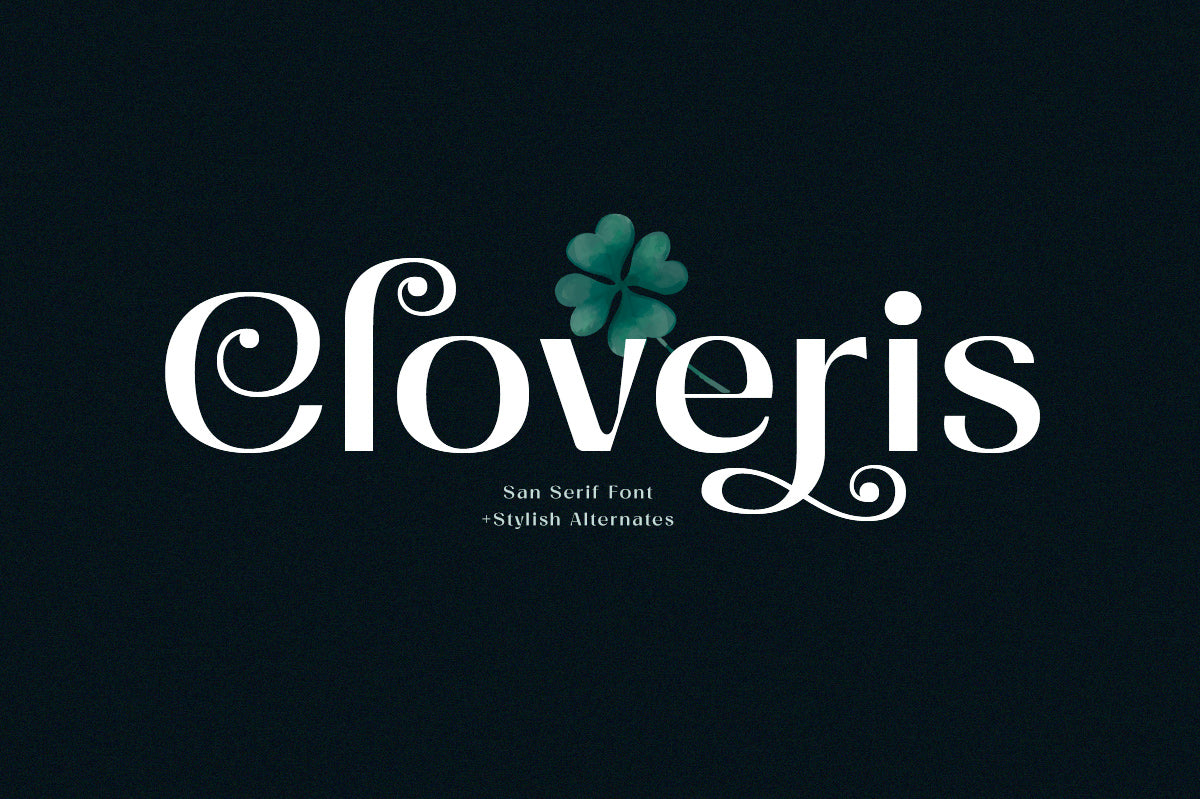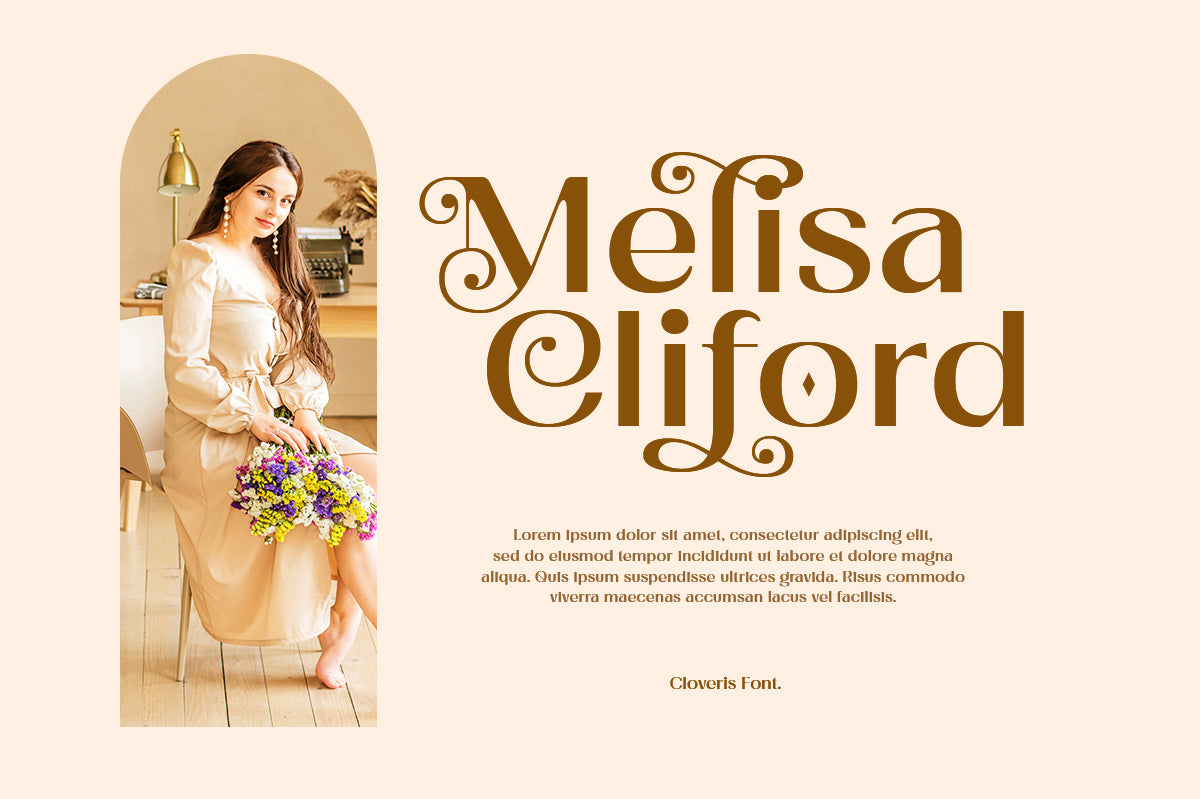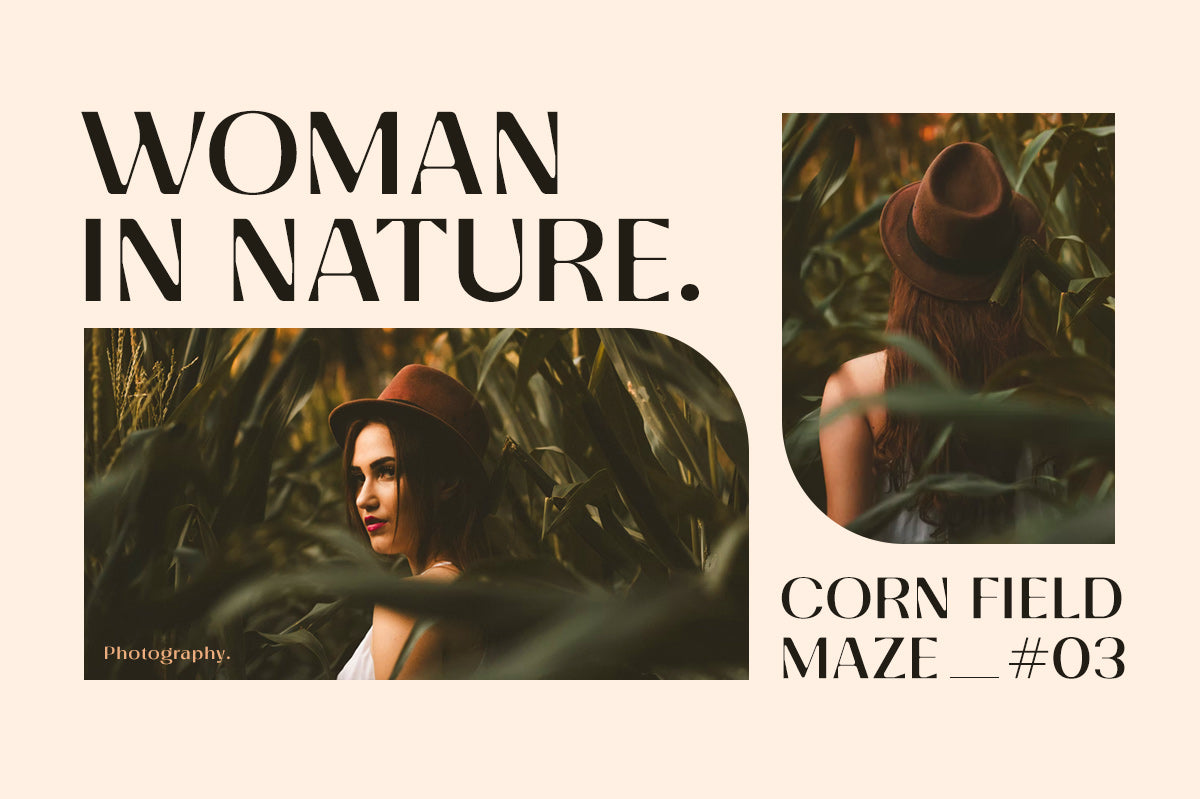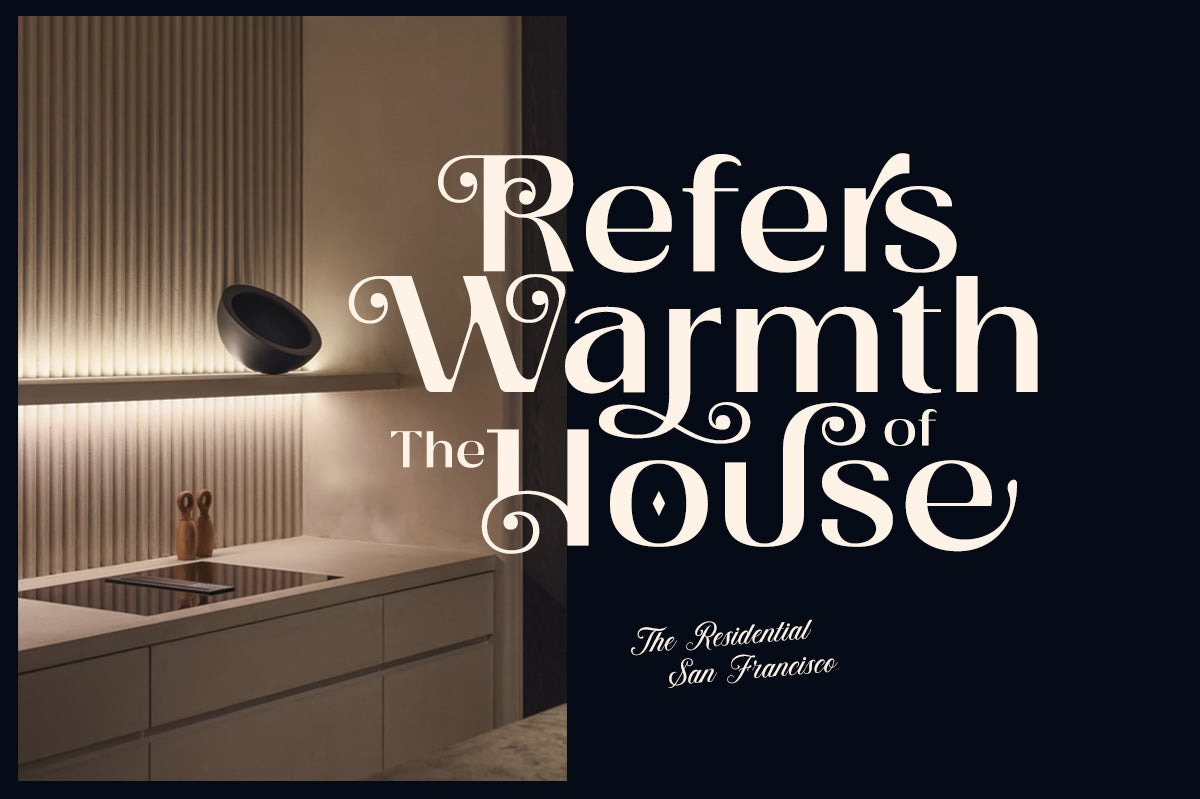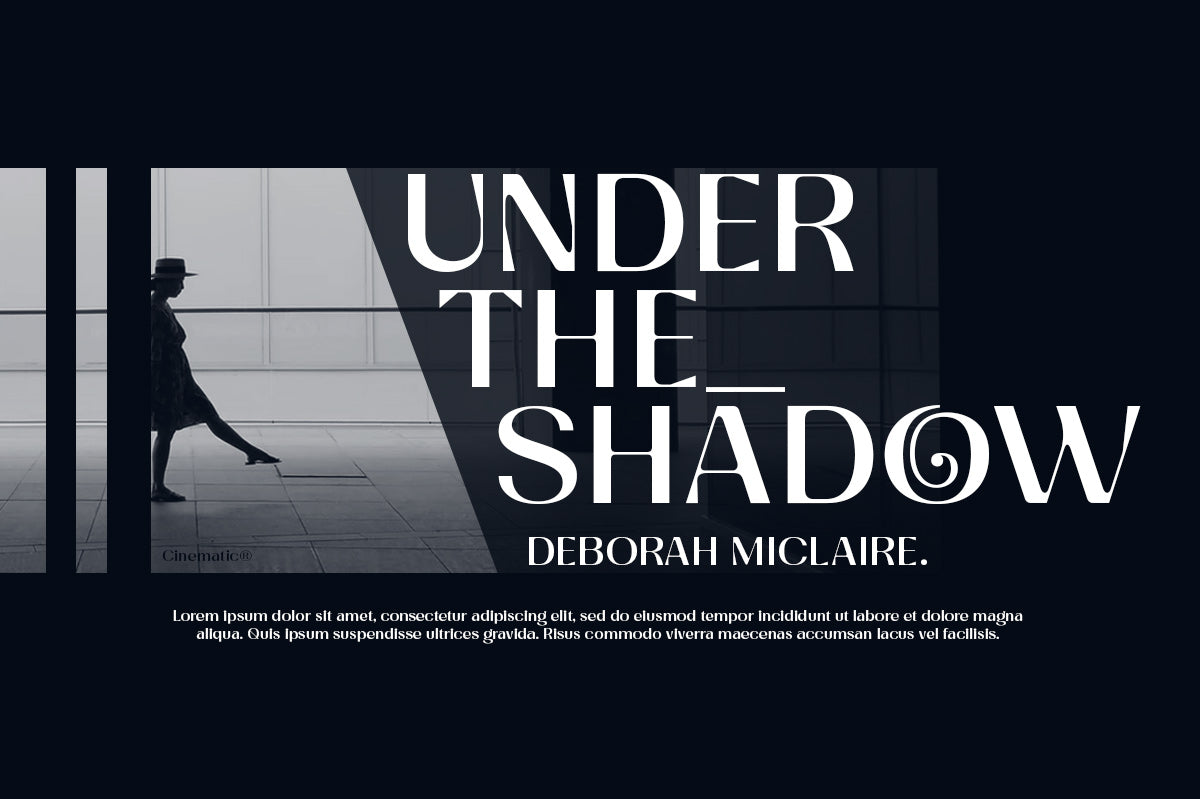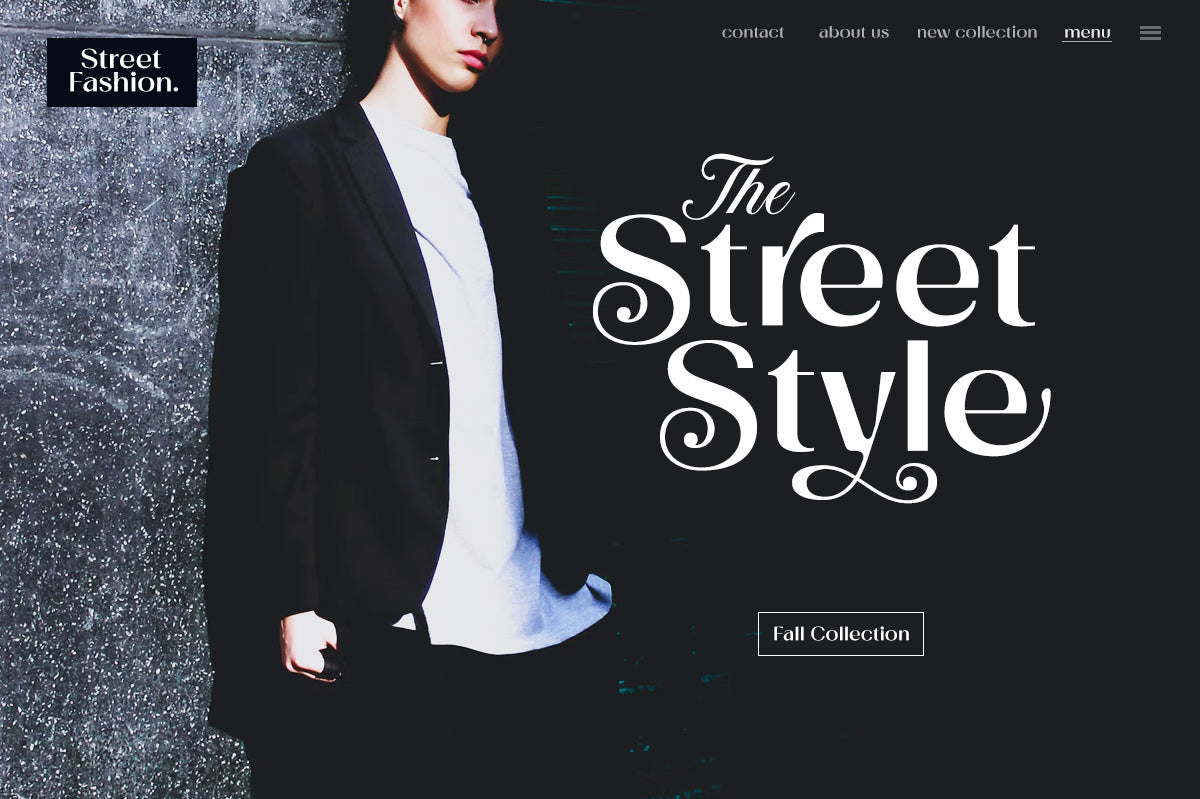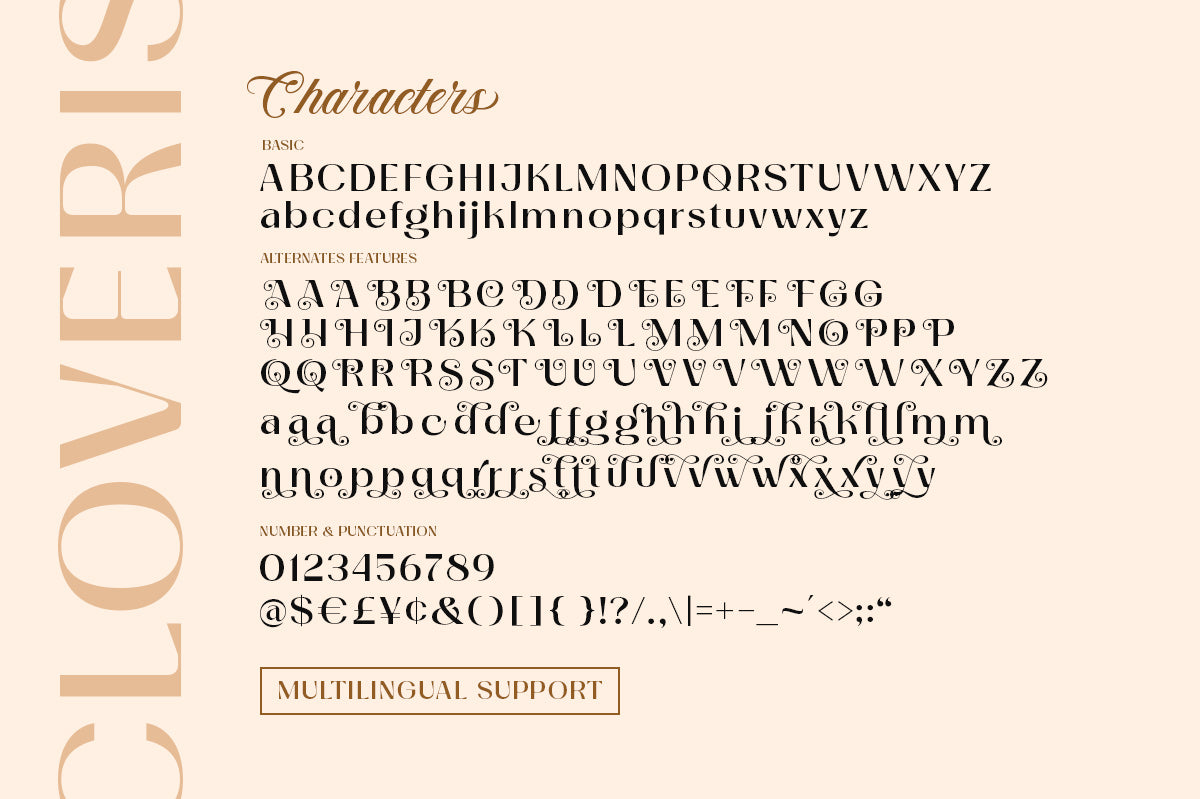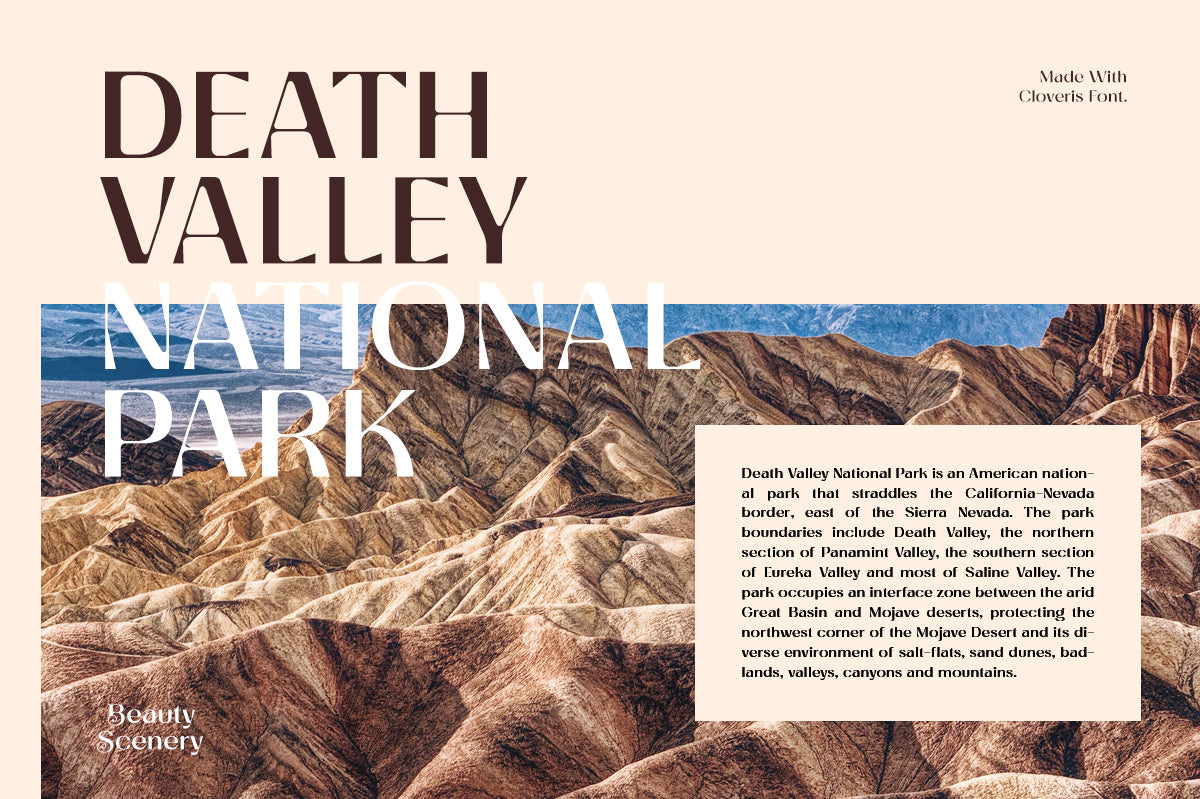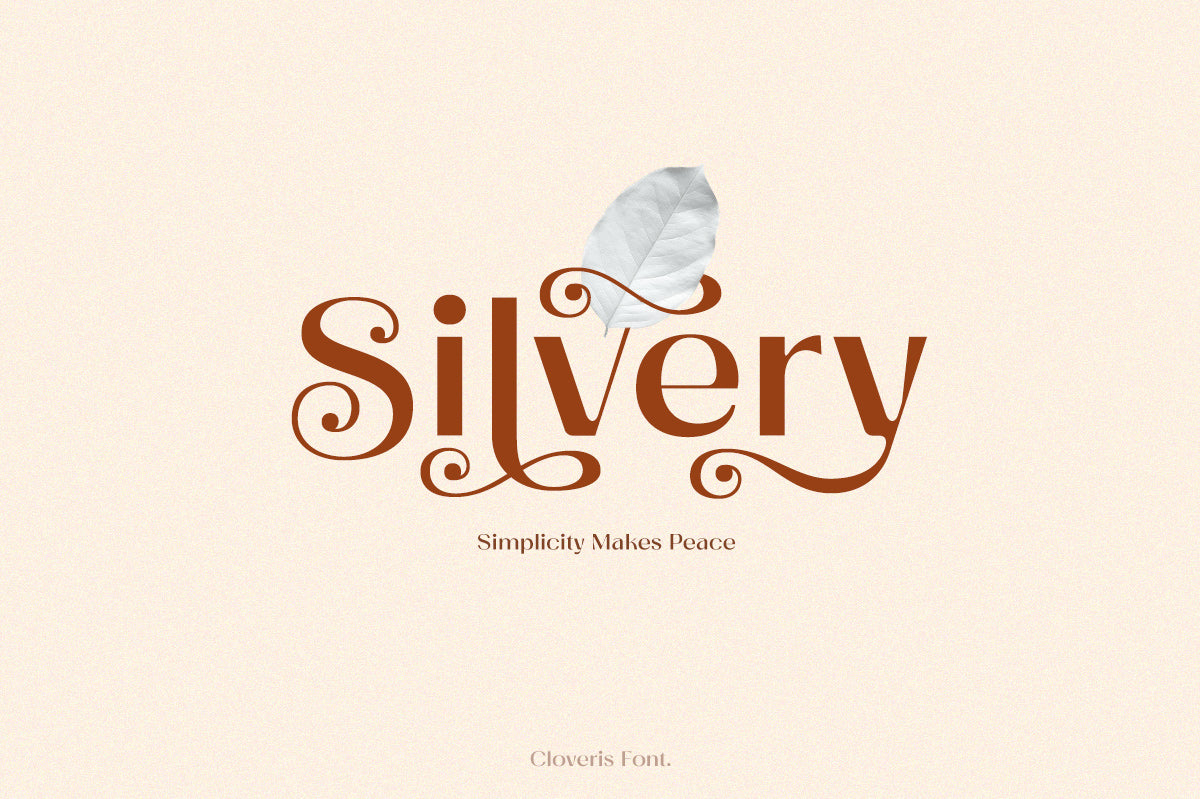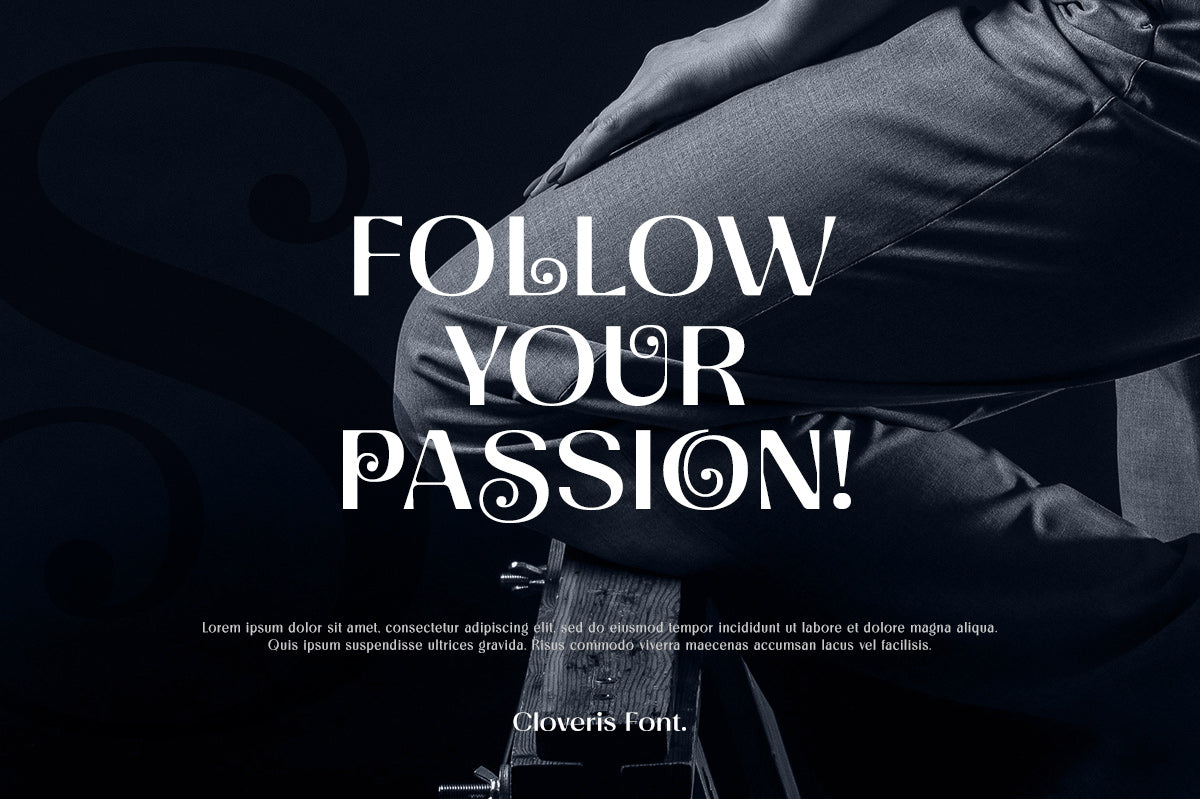
Cloveris - Stylish Sans Serif Font
Cloveris is a sophisticated sans serif with unique swirls and swashes. The letterform makes this typeface unique and stands out rather than the regular sans serif font. Very suitable for logo, headline, title, and other various formal forms such as invitations, labels, logos, magazines, books, greeting/wedding cards, packaging, fashion, makeup, stationery, novels, labels or any type of advertising purpose.
Features :
numbers and punctuation
multilingual
ligatures
alternates